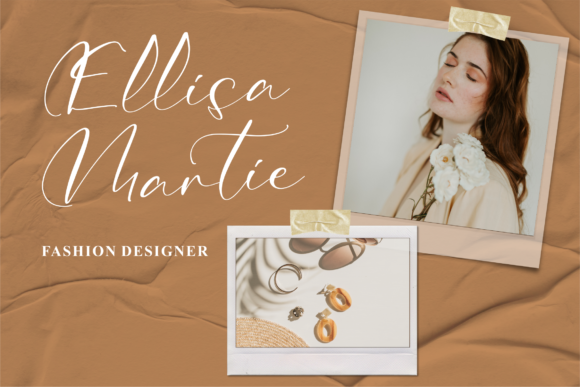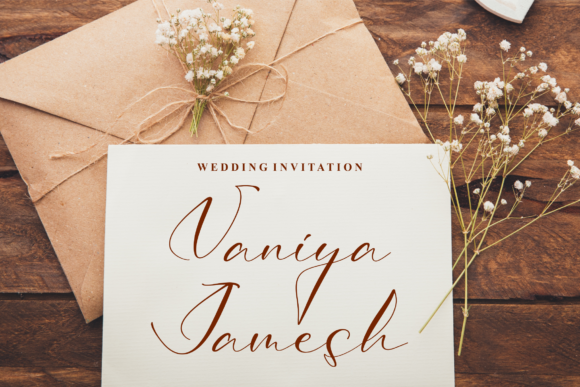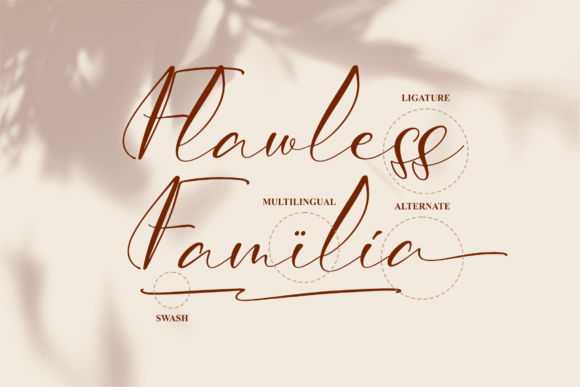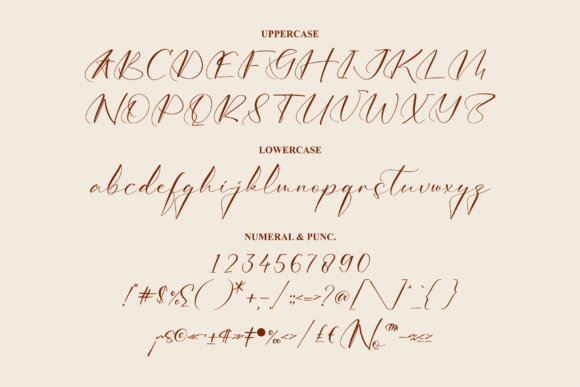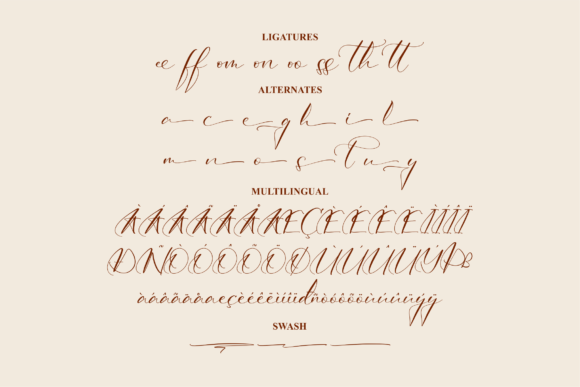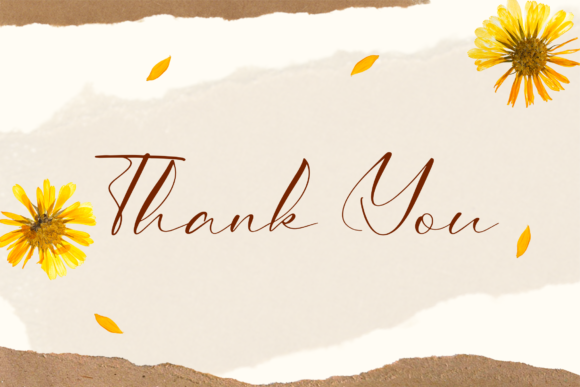
Dathian Mantika Font
About Dathian Mantika Font
Dathian Mantika is a delicate and elegant script font. It is PUA encoded which means you can access all of the glyphs and swashes with ease!
Add it confidently to your projects, and you will love the results.